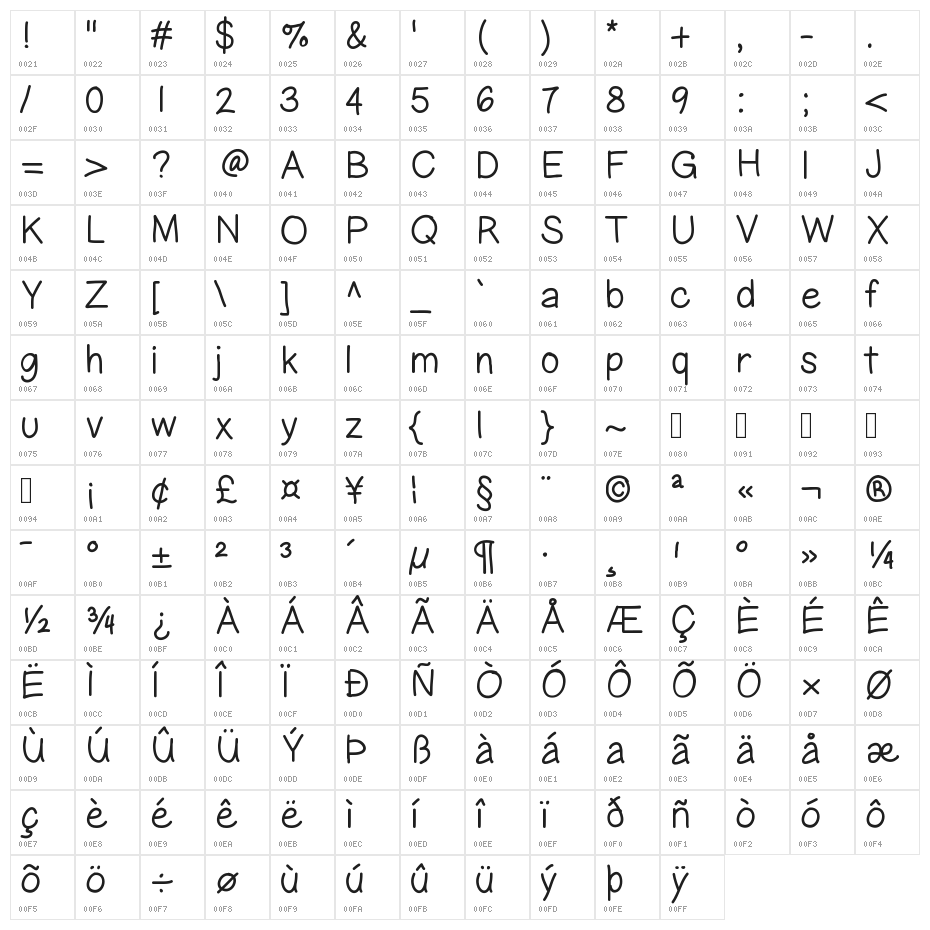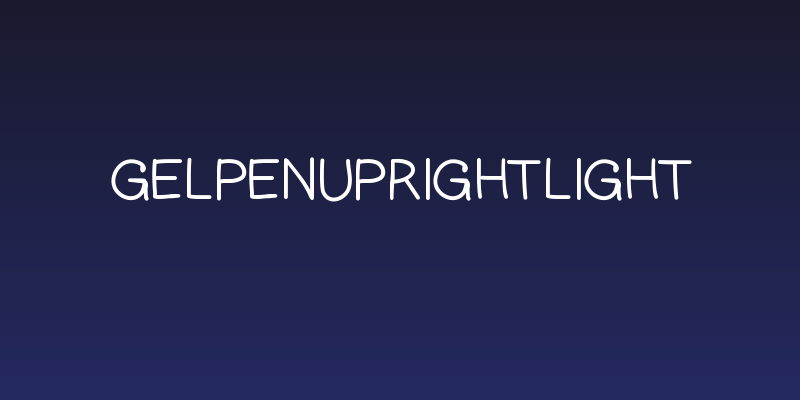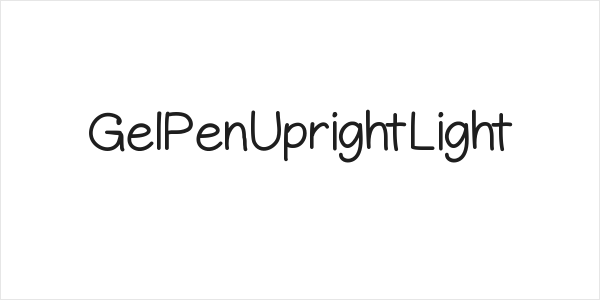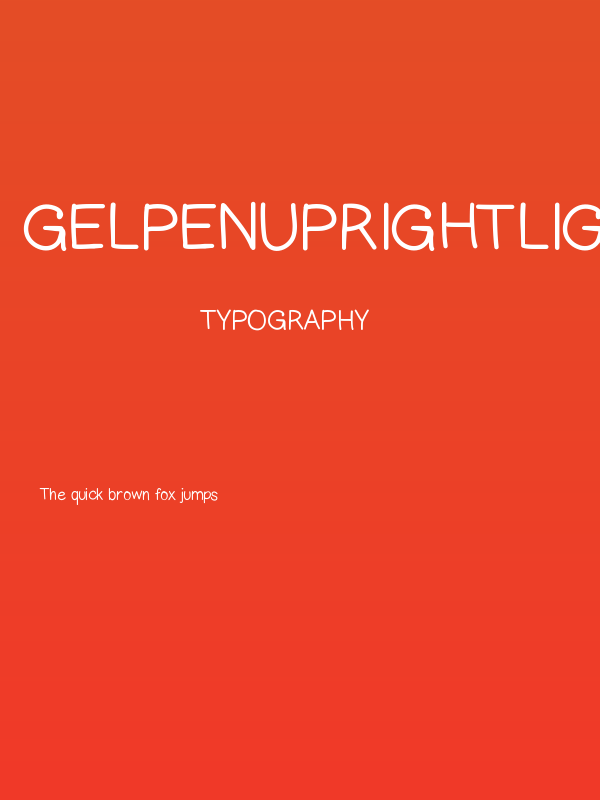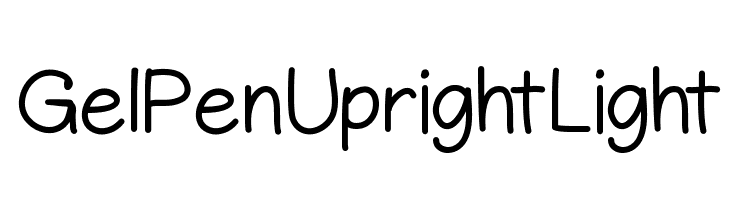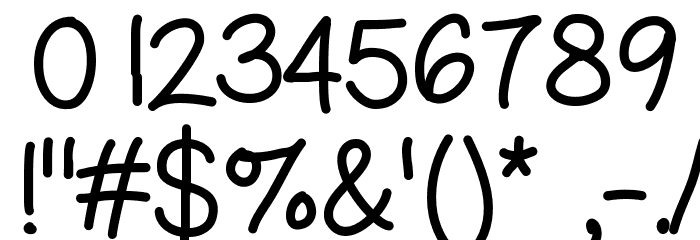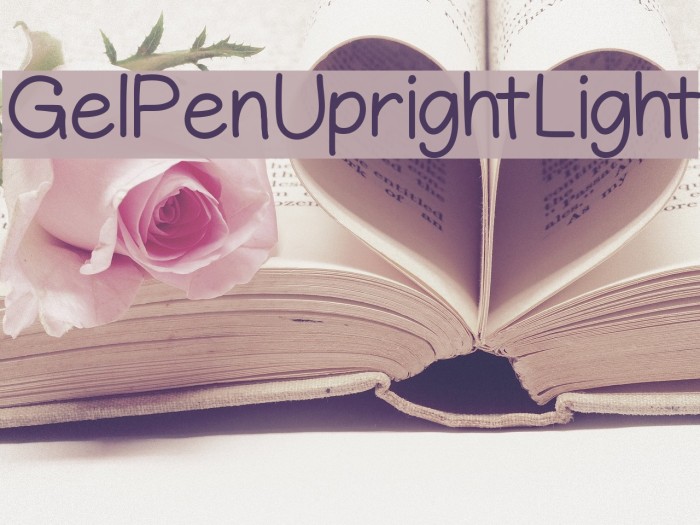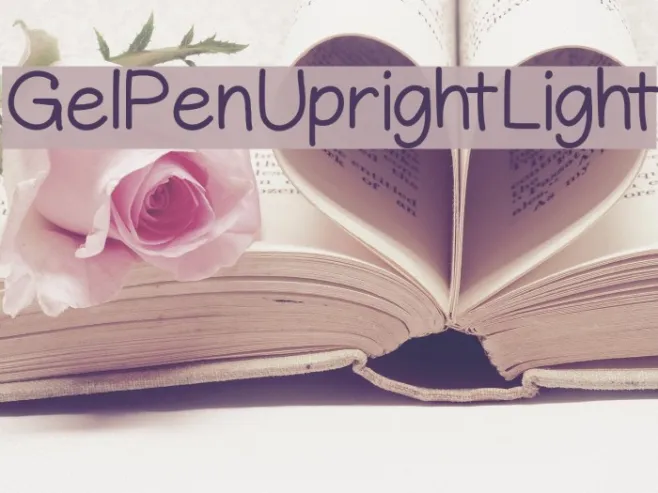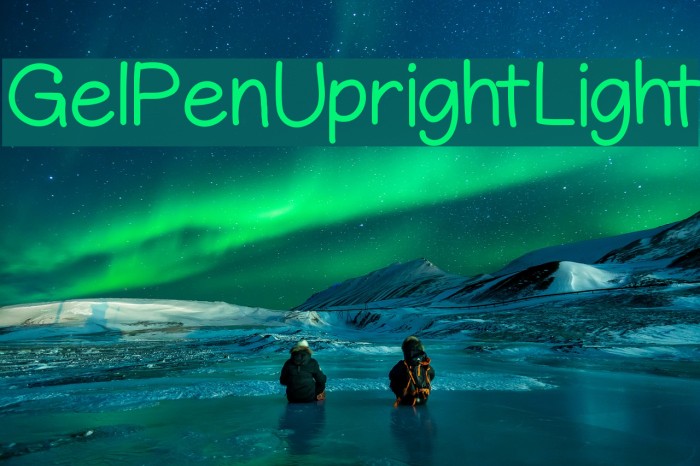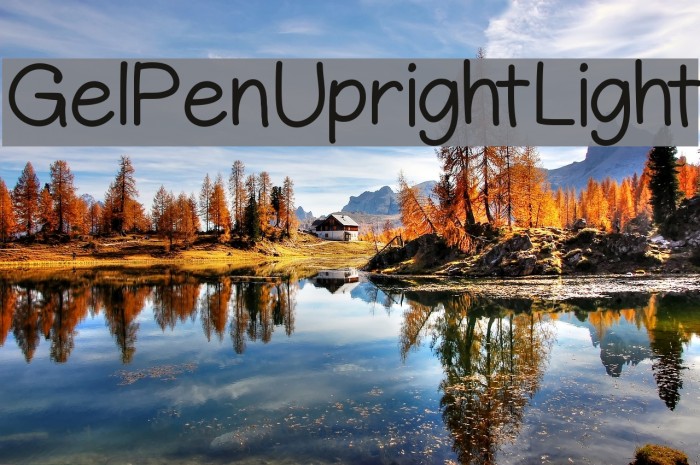
GelPenUprightLight Font
GelPenUprightLight Description
This font exhibits a playful and casual handwritten style, reminiscent of writing with a gel pen. The characters are rounded and smooth, giving a friendly and approachable feel. The uppercase and lowercase letters maintain a consistent stroke width, contributing to a uniform appearance. The numerals and special characters follow the same design principles, ensuring cohesion across all glyphs. The overall look is clean and legible, making it suitable for informal and creative projects. The spacing between characters is balanced, providing readability without feeling cramped. This font's light weight adds to its airy and relaxed aesthetic, making it ideal for projects that require a personal touch.
| Proposed Projects | Ideal for greeting cards, children's books, personal blogs, and creative branding. |